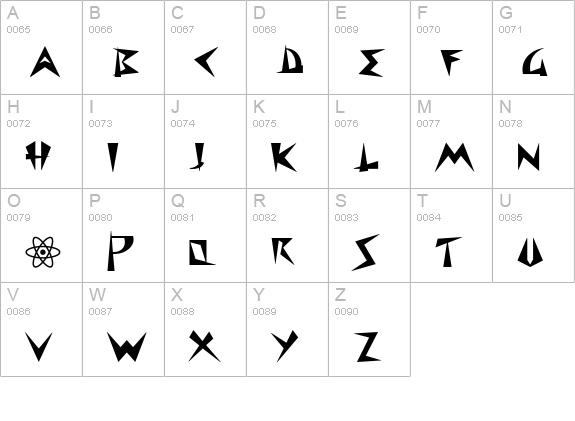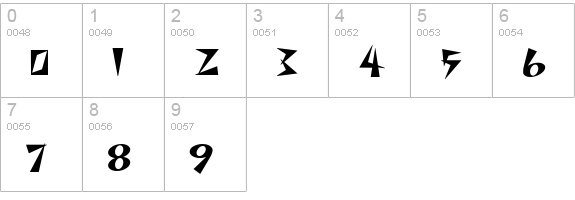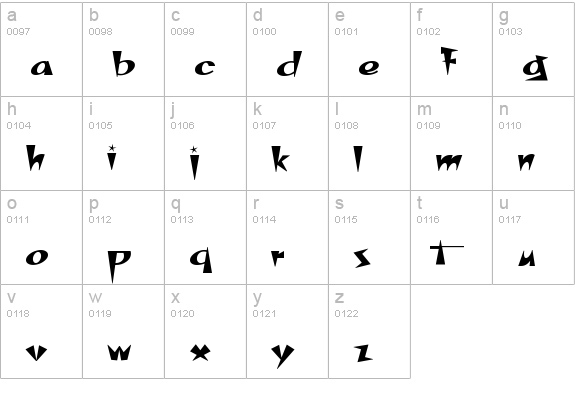
SpacePatrol Font Details
SpacePatrol is a futuristic and sleek font that embodies the spirit of exploration and adventure in the vastness of space. With its bold and angular letterforms, this font captures the essence of space travel and the cutting-edge technology that propels us forward into the unknown. The SpacePatrol font is not only visually striking, but it also offers a sense of versatility. Its clean lines and geometric shapes make it ideal for a wide range of design projects, from sci-fi movie posters to futuristic branding for tech companies. Whatever your creative vision may be, SpacePatrol is sure to make a bold statement. One of the best things about SpacePatrol is that it is free. Yes, you read that right - this incredible font is freely available to download at FontsMarket.com. Whether you are a professional designer or a hobbyist, you can access this font without breaking the bank. FontsMarket.com is a trusted source for high-quality fonts, and they have made it easy for anyone to enjoy the SpacePatrol font. So why wait? Dive into the world of space exploration and innovation with SpacePatrol. Download this font now and let your designs soar to new heights.